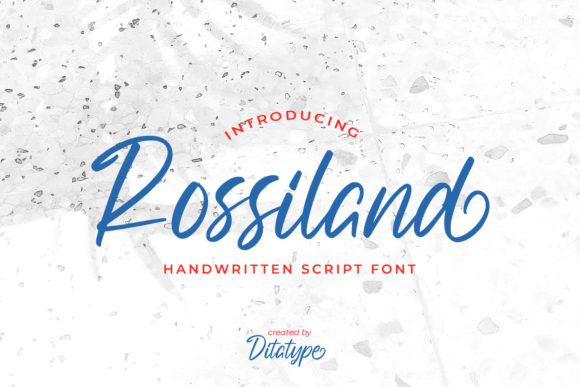
Behold Rossiland, a mesmerizing journey through the world of script fonts, handcrafted to ignite your creativity and captivate your audience. Experience the fusion of classic calligraphy with contemporary flair, where elegance dances with freshness.
Immerse yourself in the beauty of Rossiland, an alluring script font designed to elevate your projects to new heights. Its graceful strokes, reminiscent of a skilled calligrapher's hand, bring a touch of sophistication and charm to every word.
With Rossiland, you can effortlessly create stunning logos that exude timeless elegance or craft captivating social media posts that demand attention. Its versatility shines through in branding, packaging, and even personal projects, making it the perfect choice for designers, bloggers, and creative entrepreneurs alike.
Unleash your creativity and discover endless possibilities with Rossiland. Its intuitive design allows you to effortlessly access a wide range of glyphs and swashes, ensuring that your creations always stand out from the crowd.
Rossiland is more than just a font - it's an experience. Elevate your designs, stir emotions, and create lasting impressions with every stroke. Embrace the power of Rossiland and embark on a creative journey that will leave you breathless.